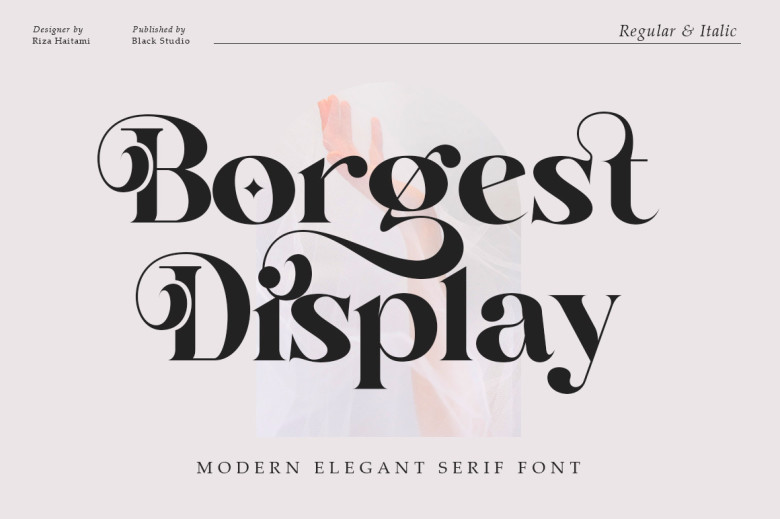
Borgest Display Font
Borgest Display is designed with sophistication and luxury, and is distinctly feminine and glamorous, but was also inspired to be a bit more beautiful—and come with plenty of alternative—a side of glamor to give your creative projects the style they crave. The striking contrast and delicate features, along with its’ lush strokes and shapely curves, make a beautiful and assertive statement for any typographic composition, perfect for mixing glamour and modern aesthetics. Borgest Display elegant serif is truly up for making your project titles unlimited variations in your creative needs : magazines, fashion, logos, branding, photography, invitations, wedding invitations, quotes, blog headers, posters, advertisements, postcards, books, websites, etc.
Borgest Display Serif Font